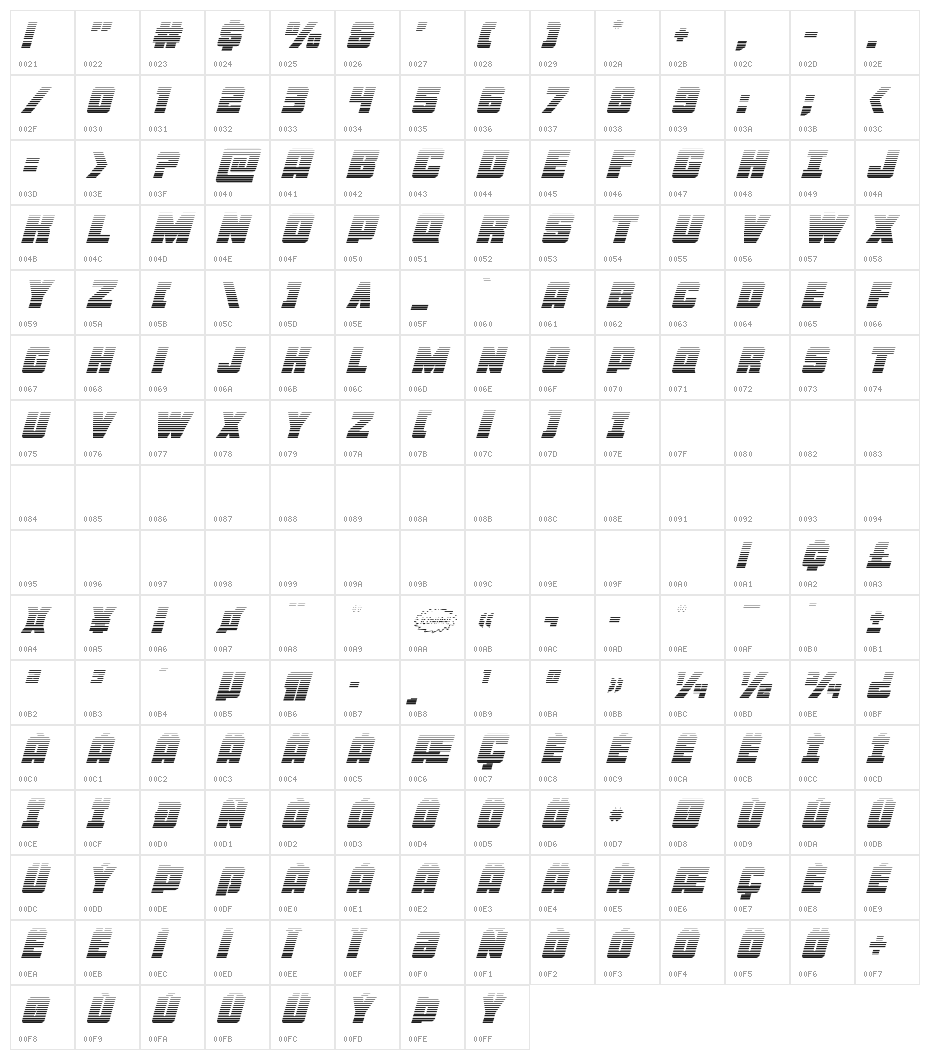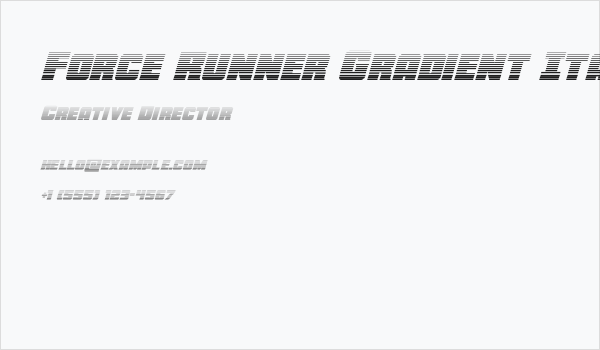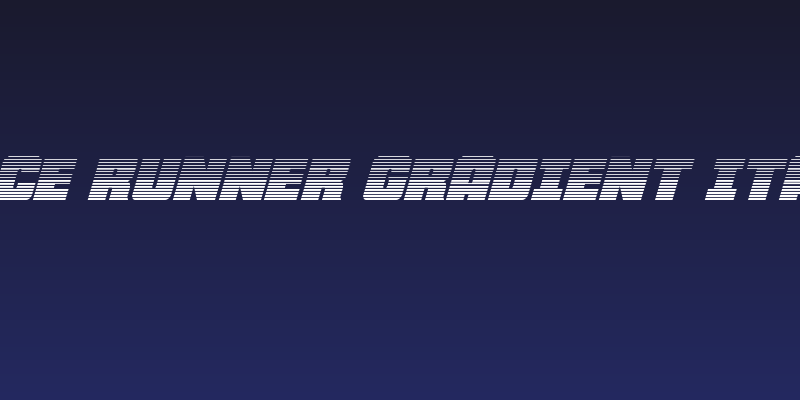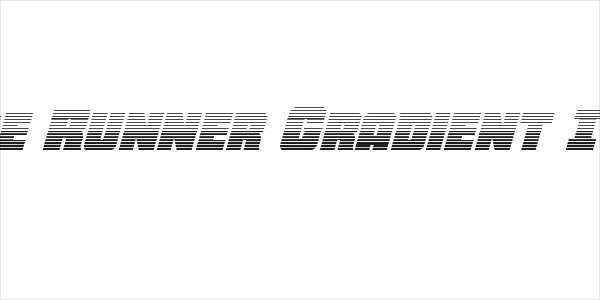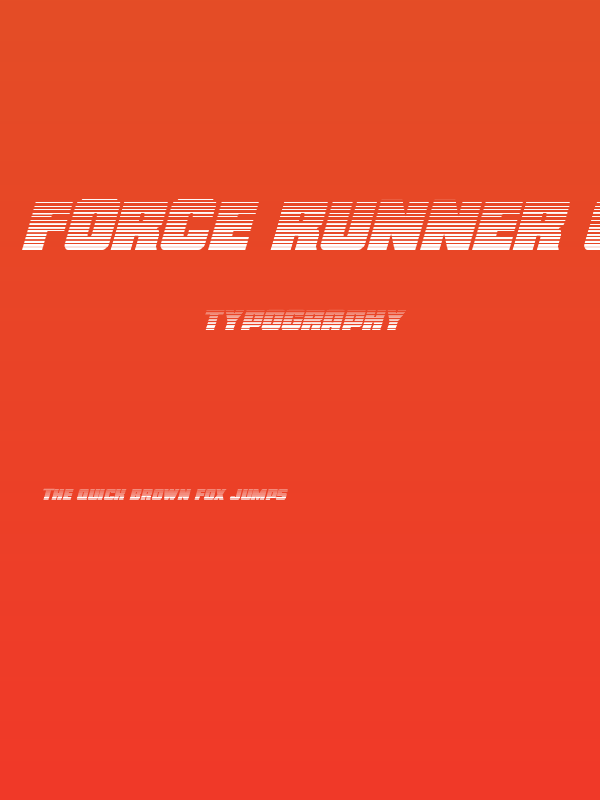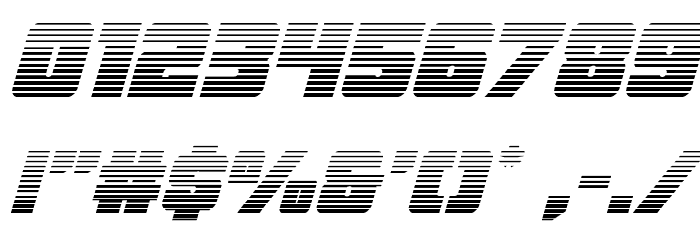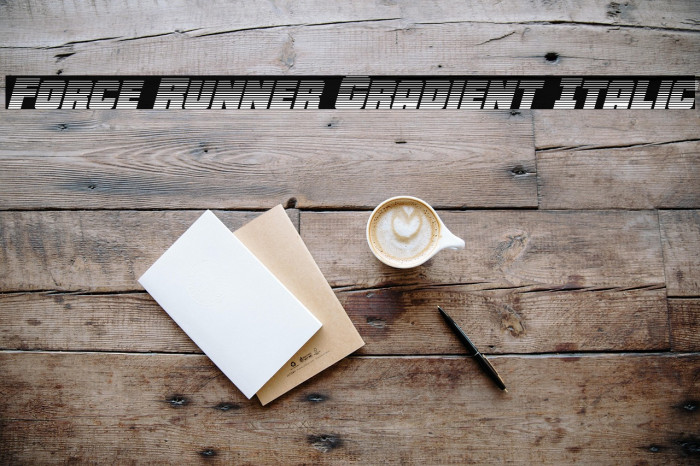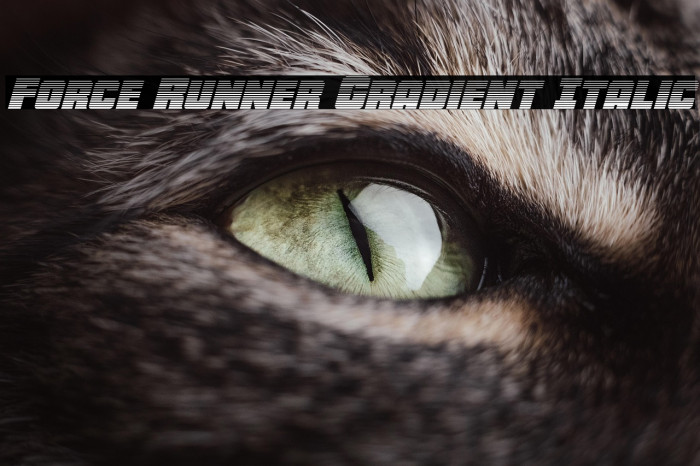
Force Runner Gradient Italic Font
Force Runner Gradient Italic Description
This font features a dynamic and futuristic design with a gradient effect that gives the impression of speed and movement. The characters are italicized, adding to the sense of forward motion. Each letter is composed of horizontal lines that create a striped pattern, enhancing the visual impact. The bold and angular shapes contribute to a modern and edgy aesthetic, making it suitable for projects that require a strong and energetic look. The font maintains a consistent width across characters, ensuring uniformity and balance. Its unique style is ideal for creative and innovative designs.
| Proposed Projects | Ideal for sports branding, futuristic designs, video game titles, and dynamic posters. |